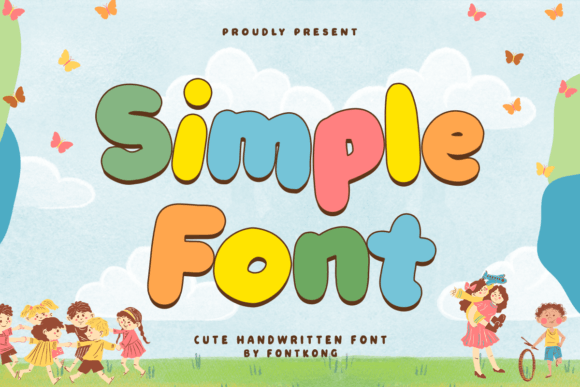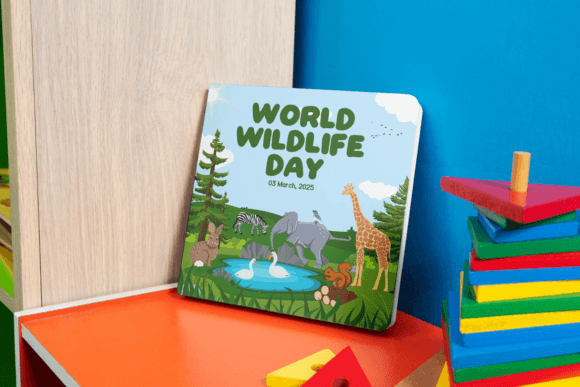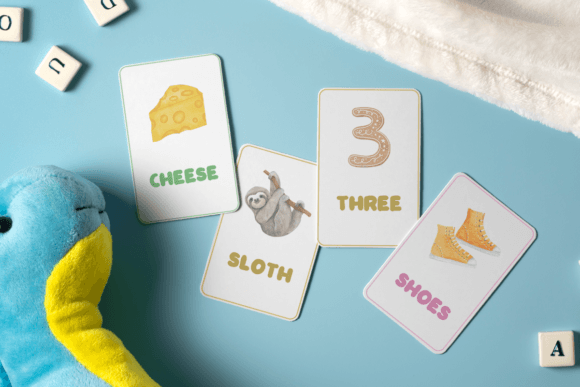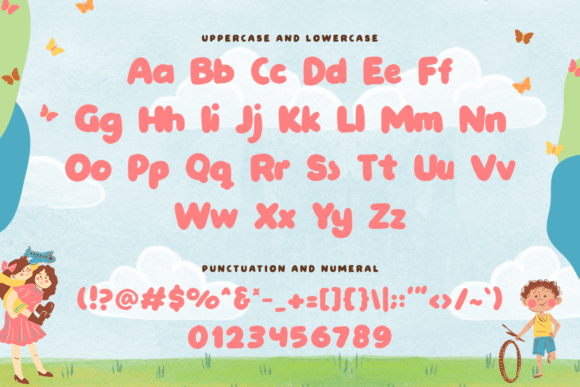
Simple Font Font Font
Introducing Simple Font Display Kids Font, a delightful and easy-to-read typeface designed to captivate young audiences with its playful simplicity. Featuring clean, rounded characters and a friendly appearance, Simplefont is perfect for children’s books, educational materials, playful branding, and fun party invitations. This versatile display font combines readability with charm, making it ideal for creating engaging designs that are both visually appealing and accessible for kids. Whether you’re designing classroom resources or celebrating a special occasion, Simple Font Display Kids Font adds a touch of joy and clarity to your projects.